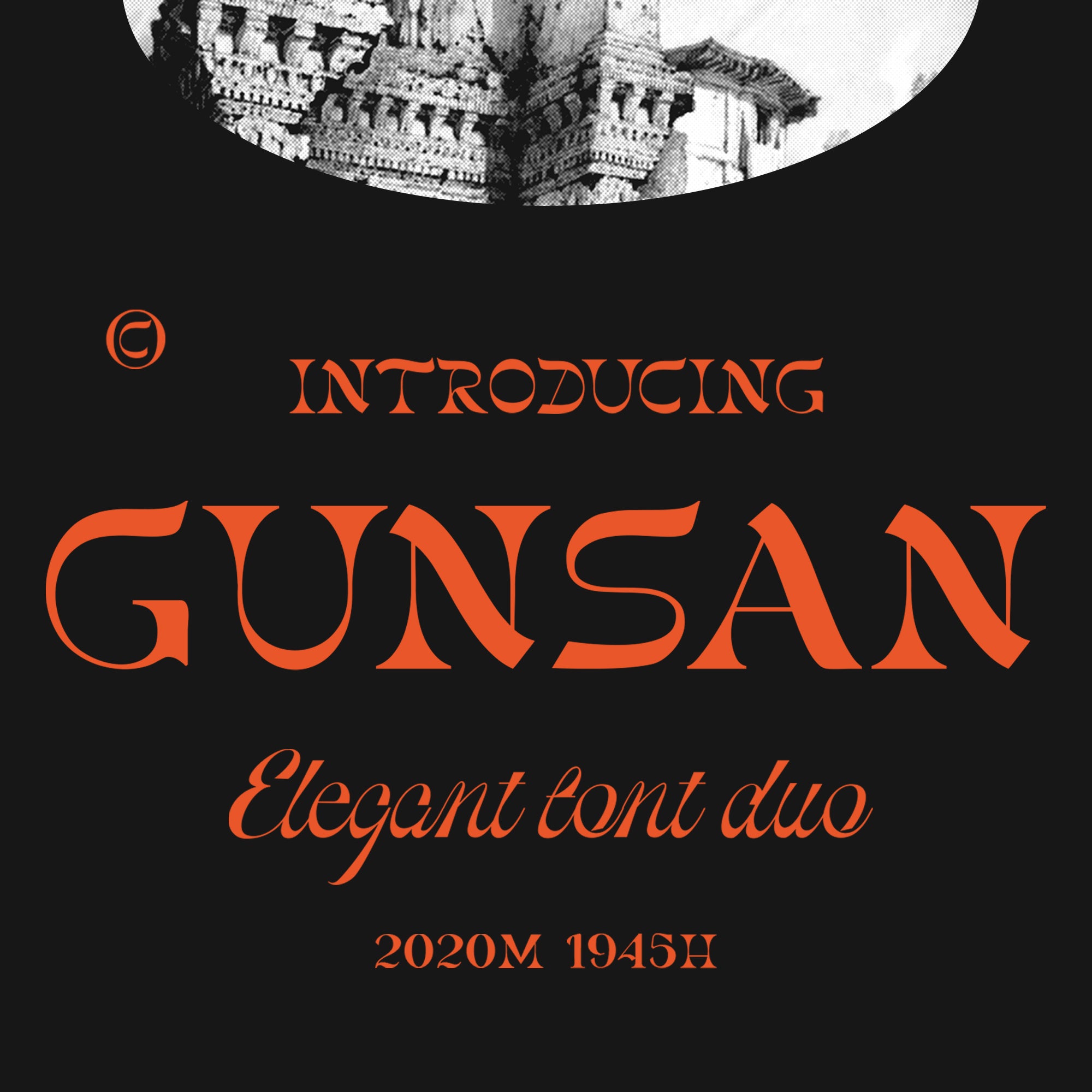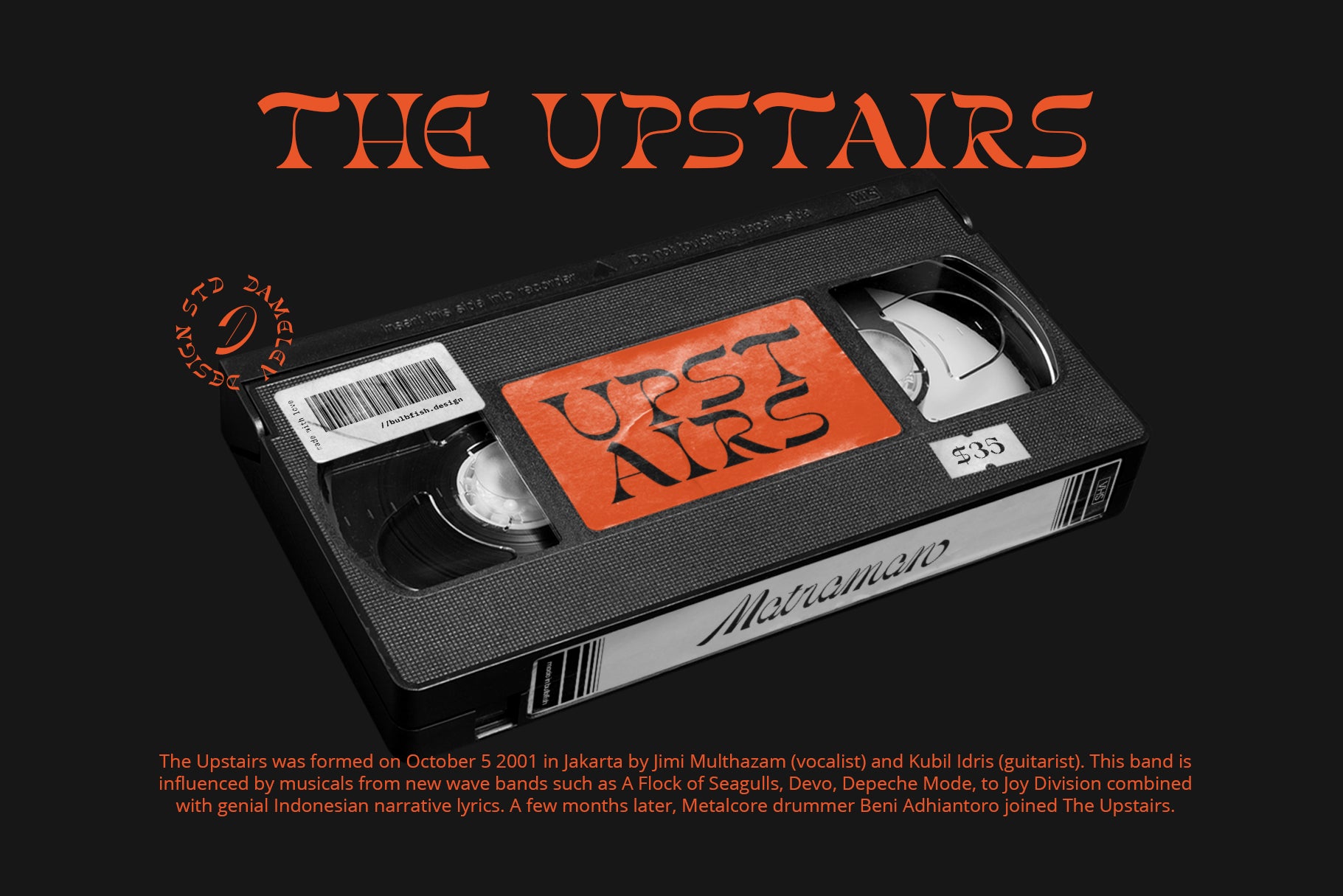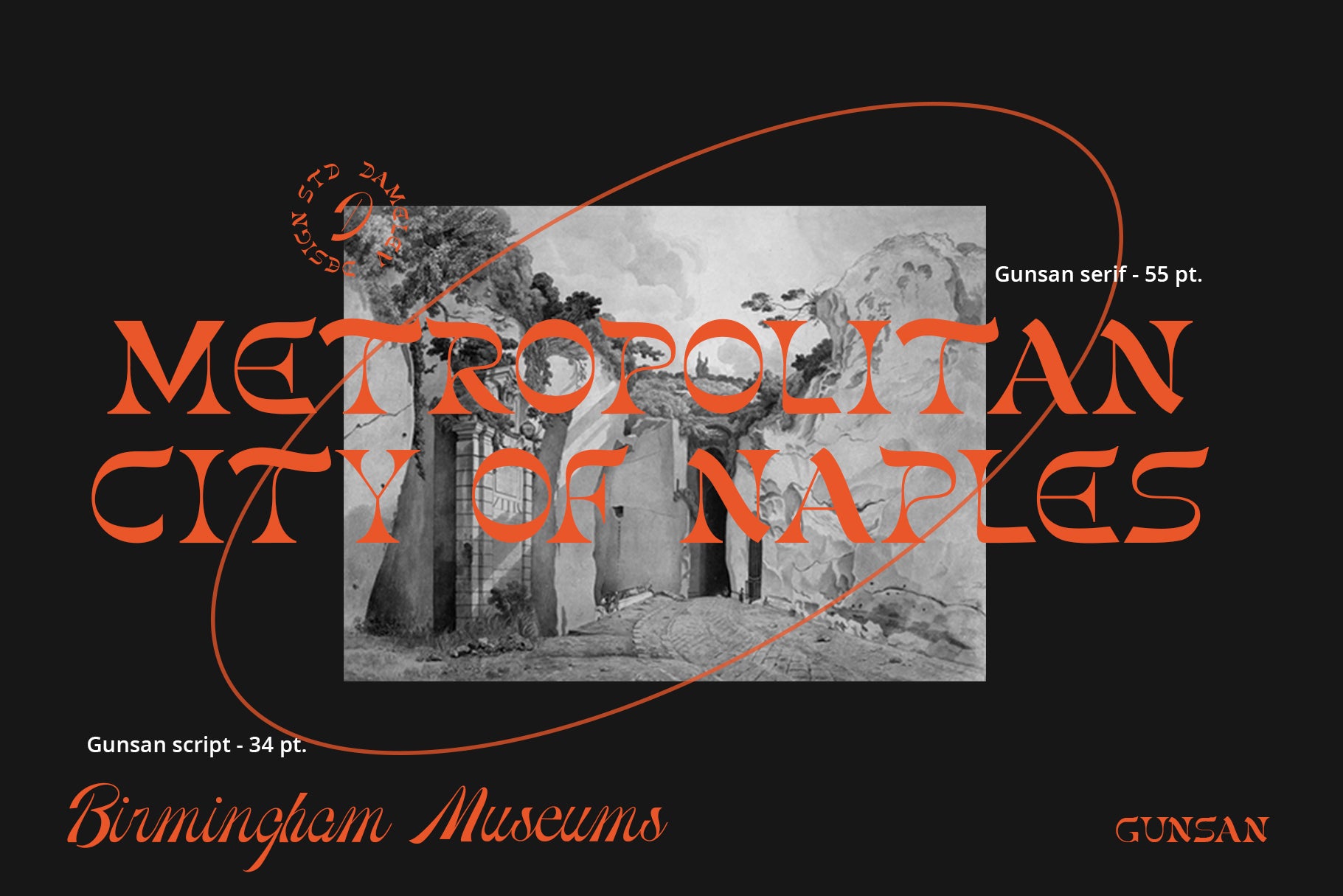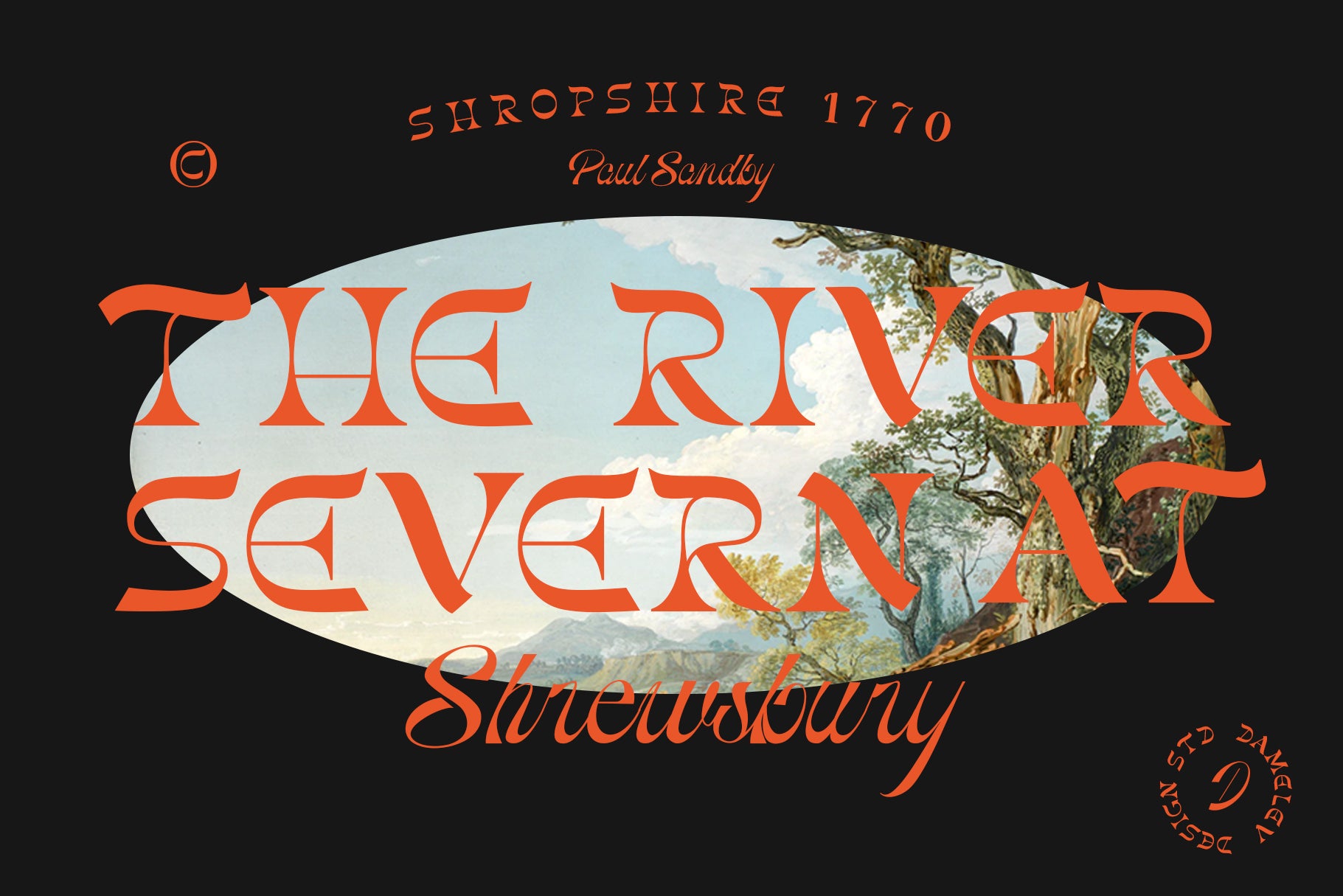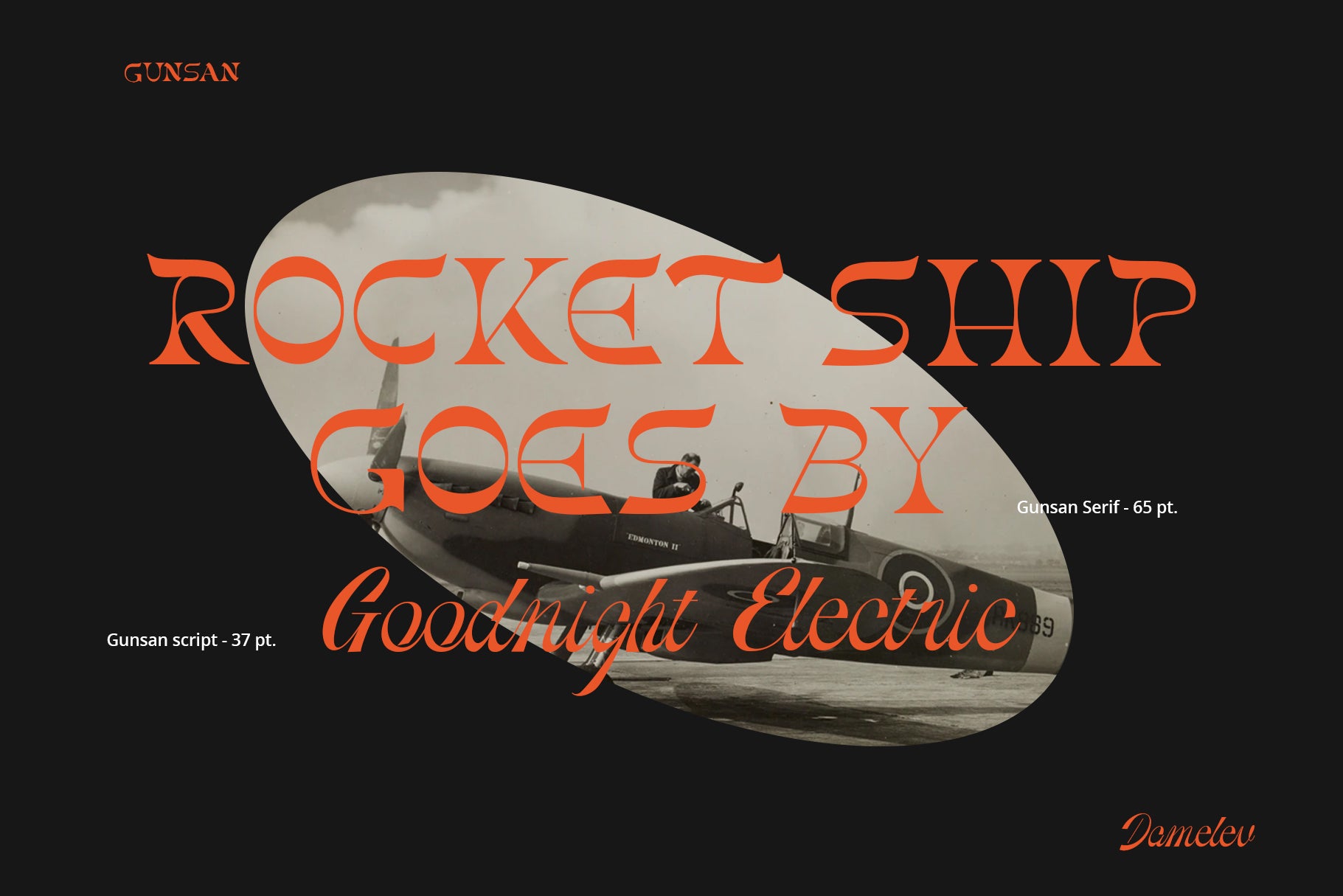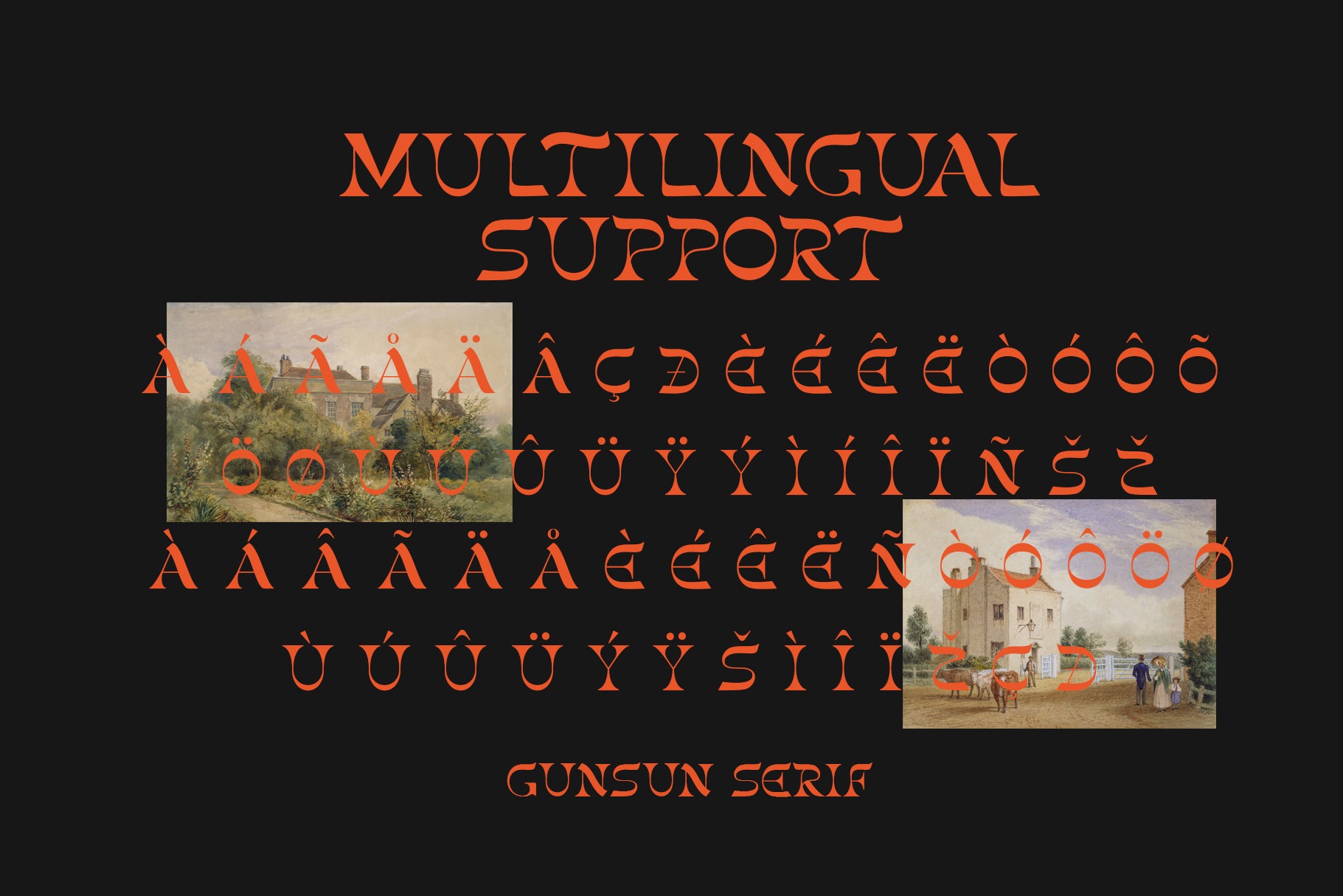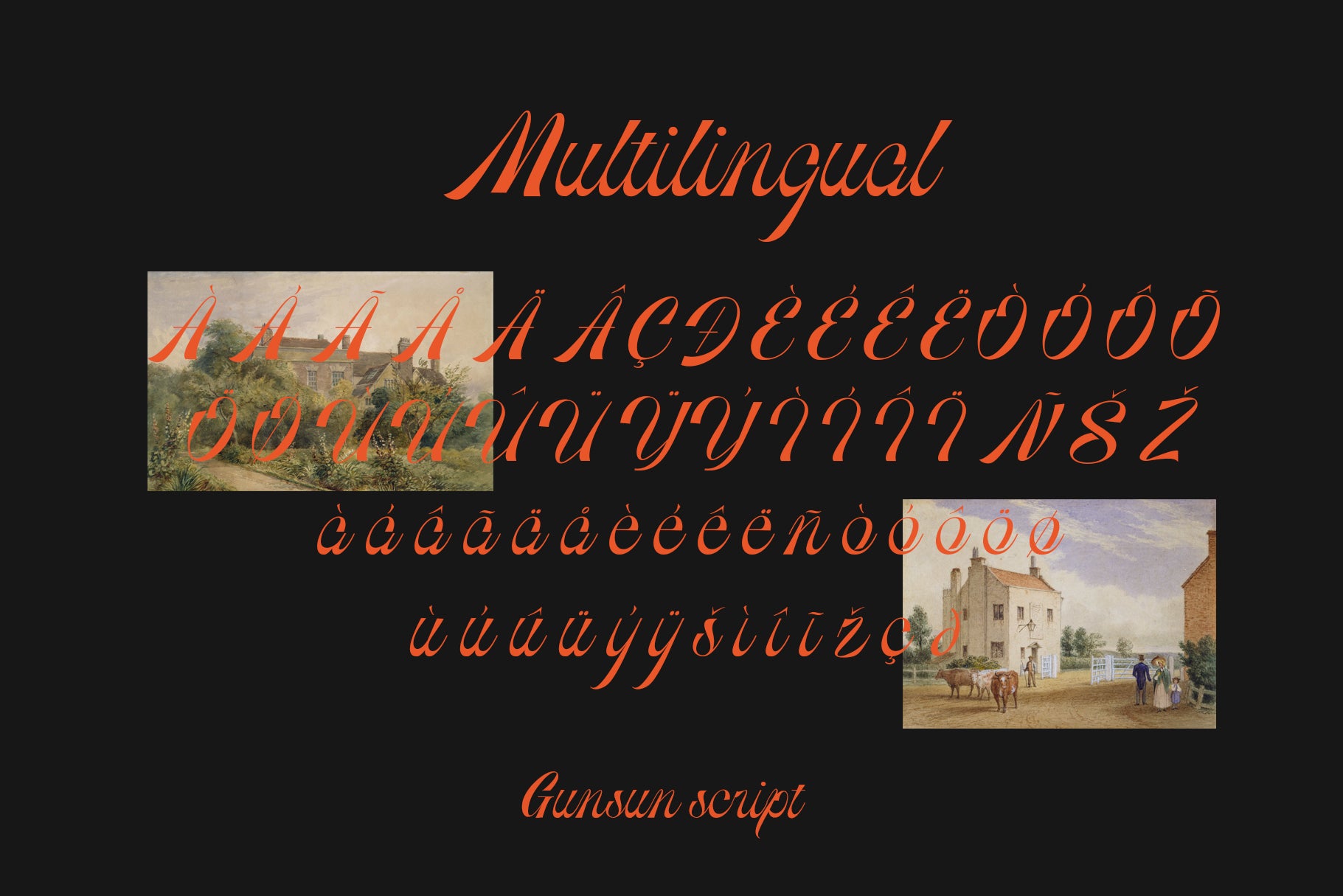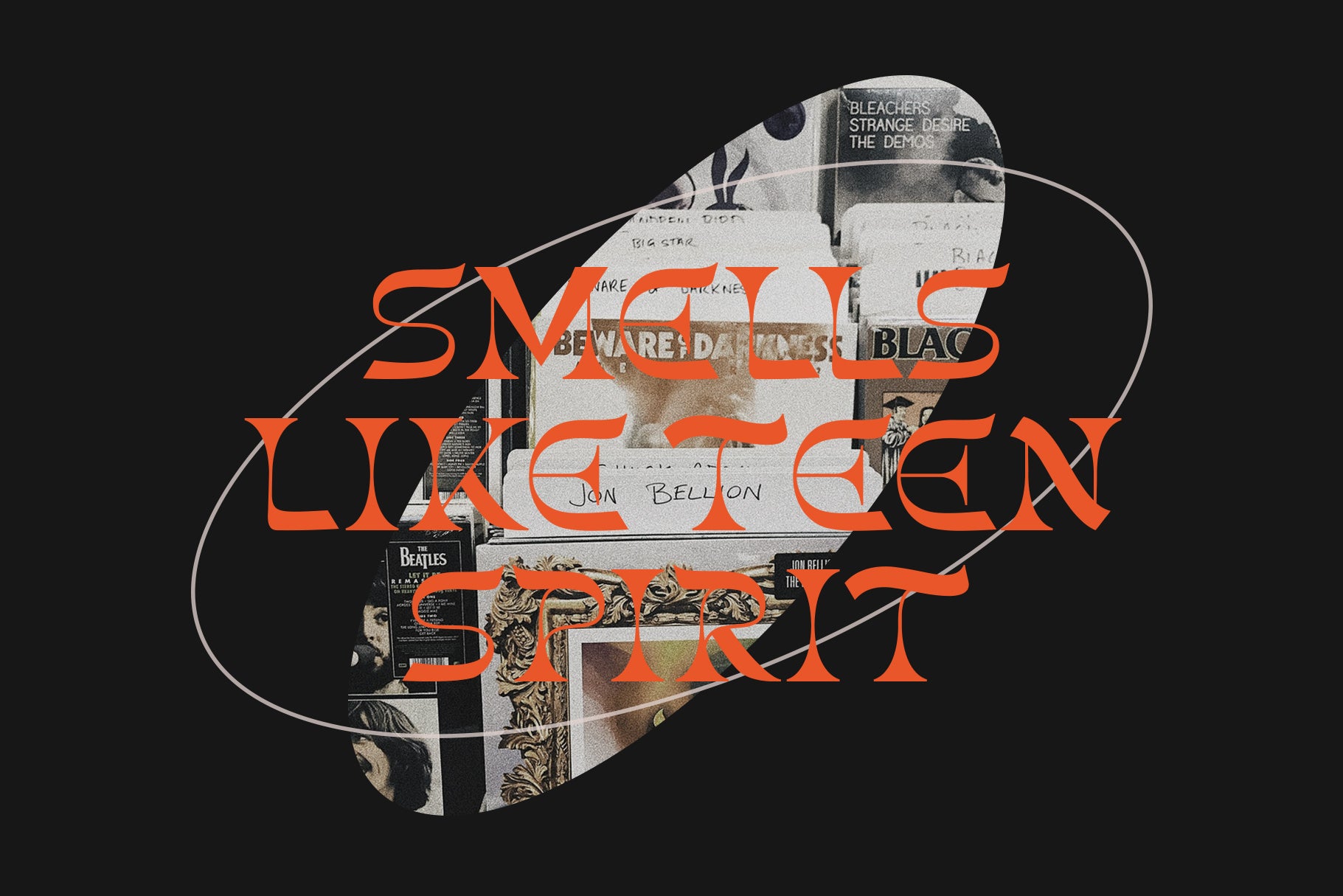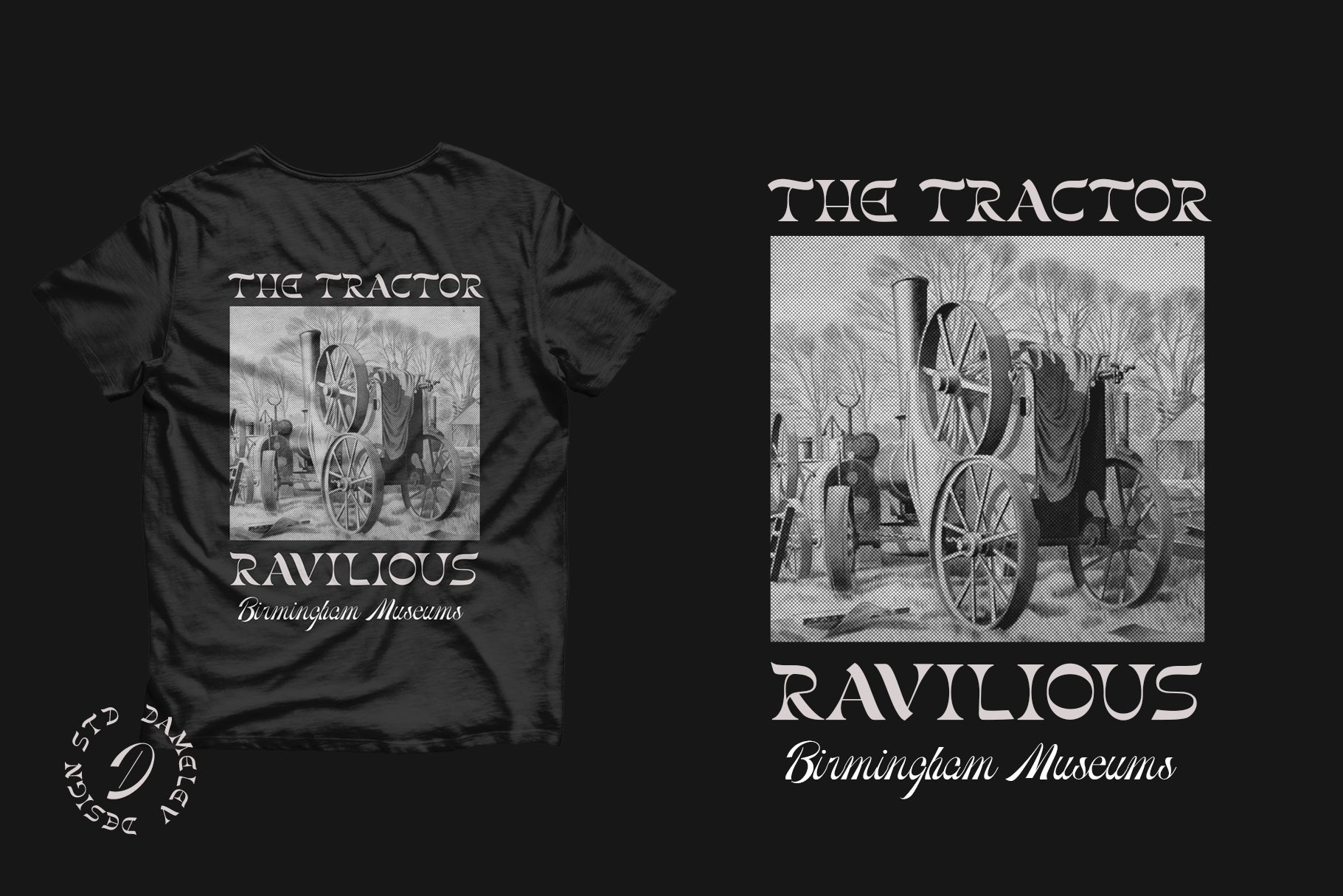
Gunsan font Duo
Damelev
Gunsan font Duo is an elegant font that has advantages in every letter, Gunsan Font Duo is designed with a mix of vintage and modern that give any headline an elegant appearance, Gunsan fits snugly in large sizes so they look perfect in your designs, Gunsan Font Duo has pretty much alternatives glyphs choice in the pack and support multilingual.
Gunsan Font Duo is an elegant typeface that combines vintage and modern styles, featuring a variety of alternative glyphs and multilingual support. It is designed to maintain clarity and aesthetics in larger sizes, making it suitable for diverse design applications.